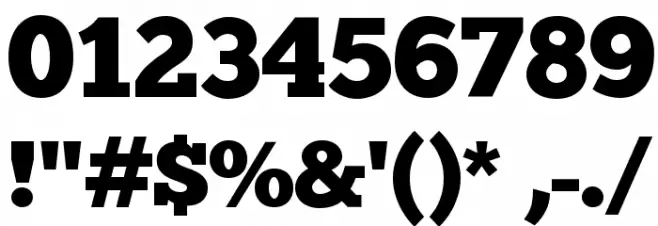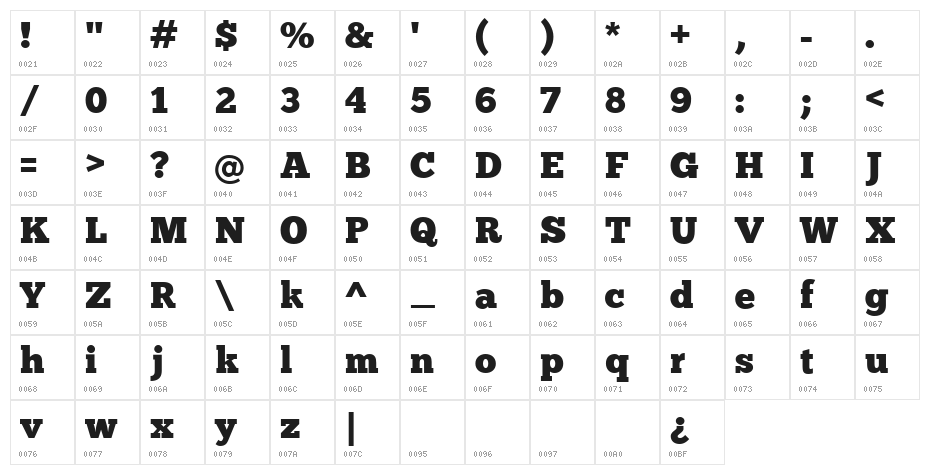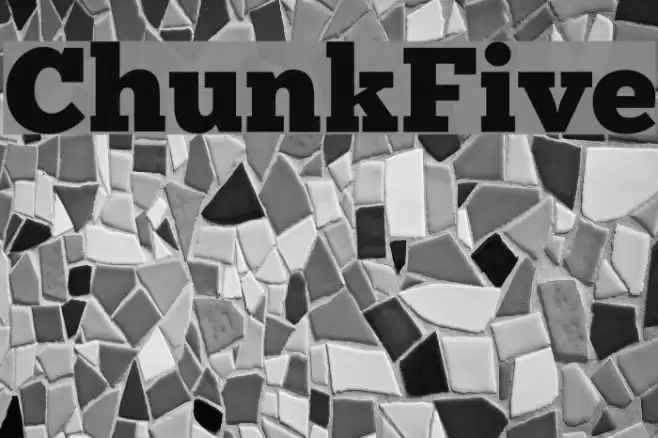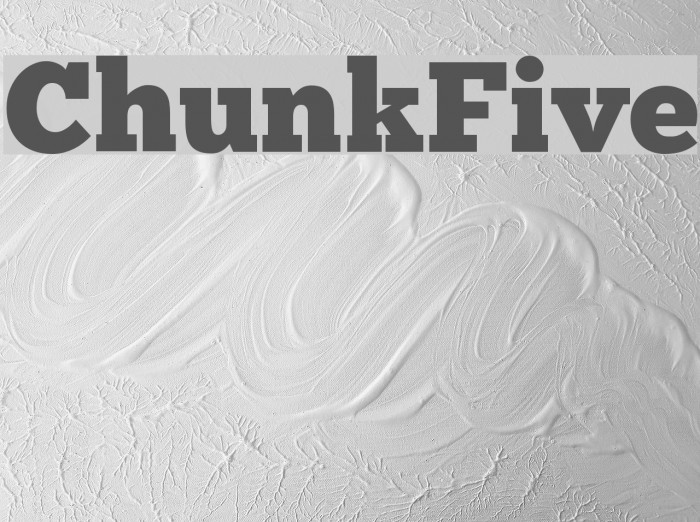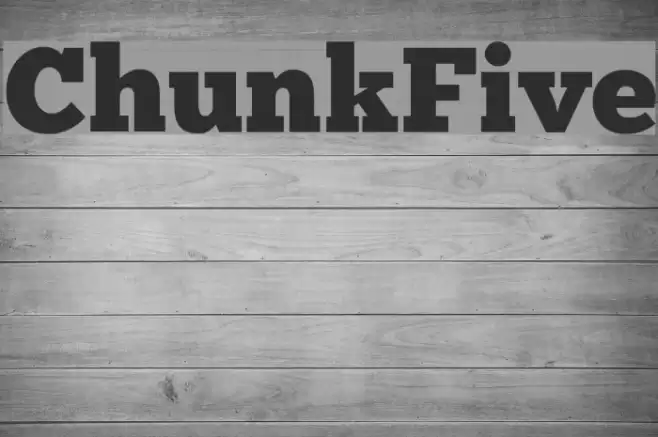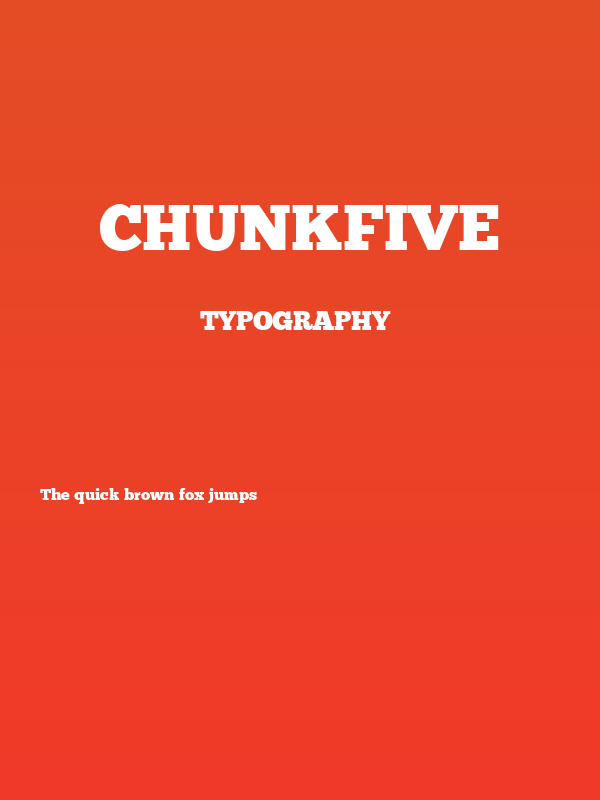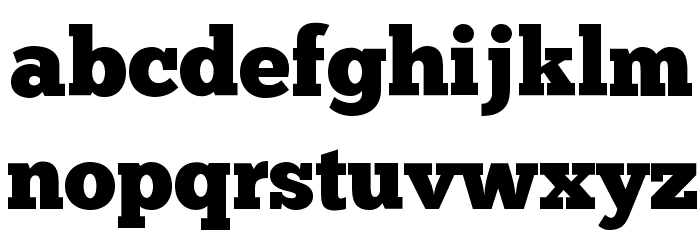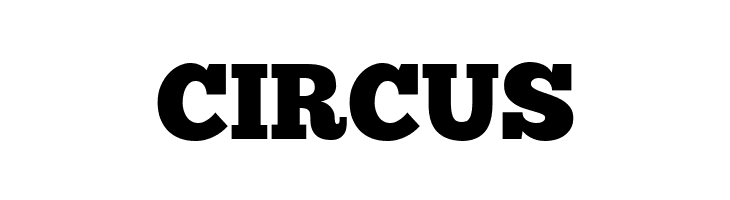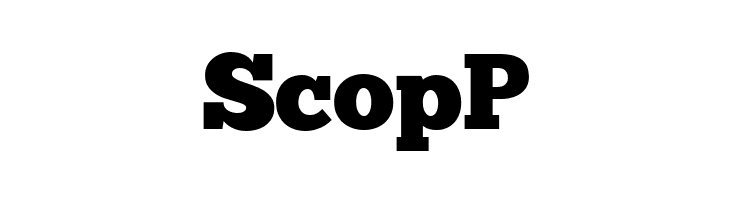
ChunkFive Font
ChunkFive Description
This font exhibits a bold and robust slab serif style, characterized by thick, block-like serifs and a strong presence. The uppercase and lowercase letters maintain a consistent weight, contributing to its bold appearance. The numerals are equally bold, ensuring readability and impact. The special characters are designed with the same weight and style, providing a cohesive look across all glyphs. This font's design is straightforward yet powerful, making it suitable for attention-grabbing headlines and titles.
| Proposed Projects | Ideal for posters, headlines, branding materials, and any project requiring a strong visual impact. |